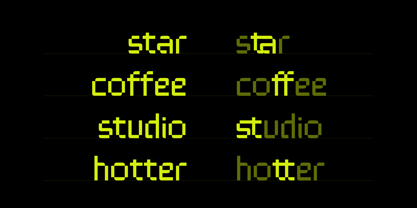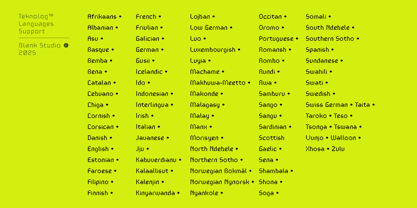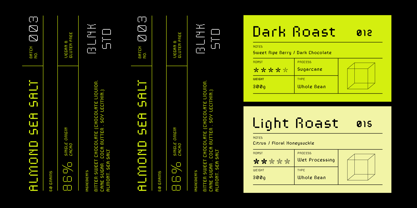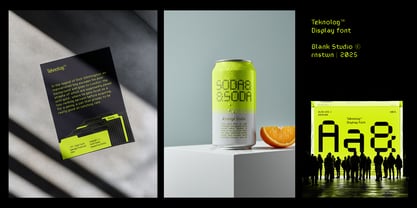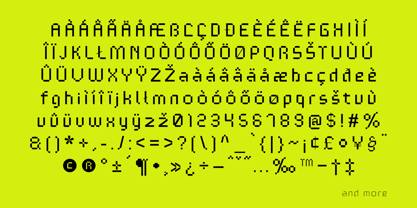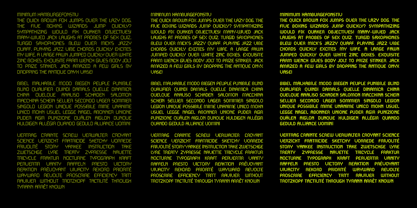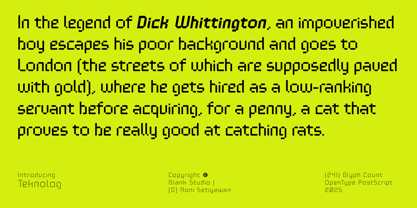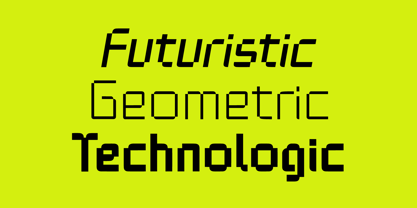
Teknolog
by Blank Studio
The Teknolog Font Family was designed by Roni Setiyawan and published by Blank Studio. Teknolog contains 6 styles and family package options. More about this family
Teknolog is a modern, technology-inspired typeface designed to embody the cutting-edge essence of the digital age. With its geometric precision and minimalistic forms, Teknolog is perfect for projects that require a futuristic and innovative touch.
This font features clean, modular characters that exude a sense of order and clarity, making it ideal for user interfaces, tech branding, gaming visuals, and other digital applications. The bold yet structured design ensures high legibility while maintaining a striking visual presence.
With 241 meticulously crafted glyphs and OpenType PostScript format, Teknolog offers versatility for a range of design needs, from headlines to display text. Its unique style combines the aesthetics of contemporary digital culture with a hint of retro-futurism, creating a balance between modernity and nostalgia.
Teknolog is more than just a typeface; it’s a statement of progress, innovation, and the limitless possibilities of technology.